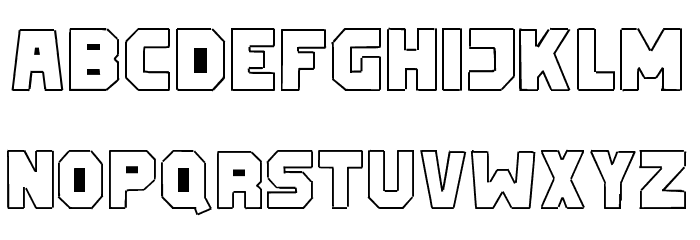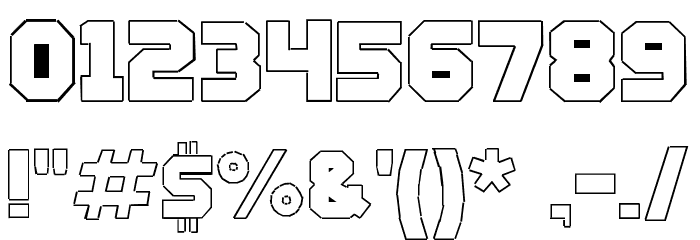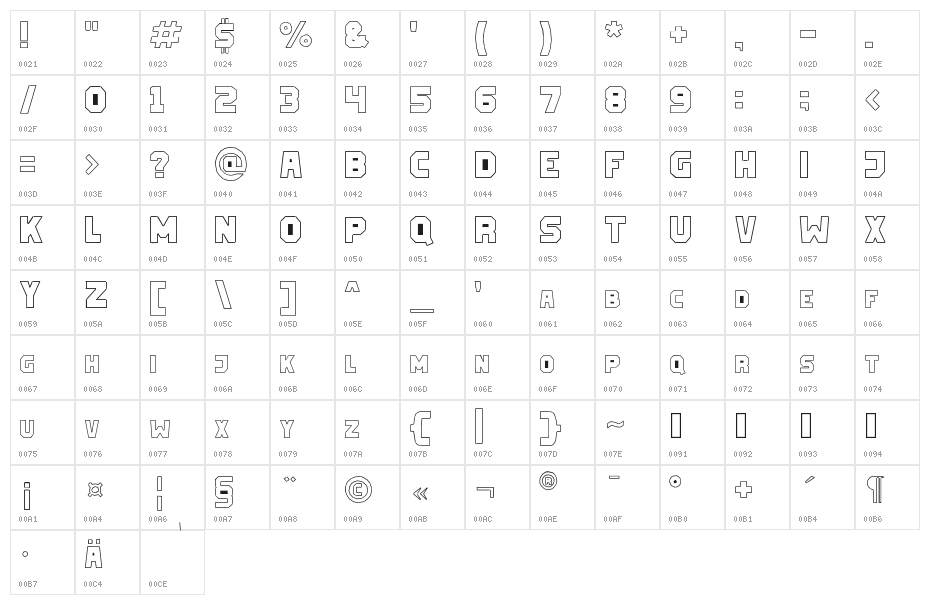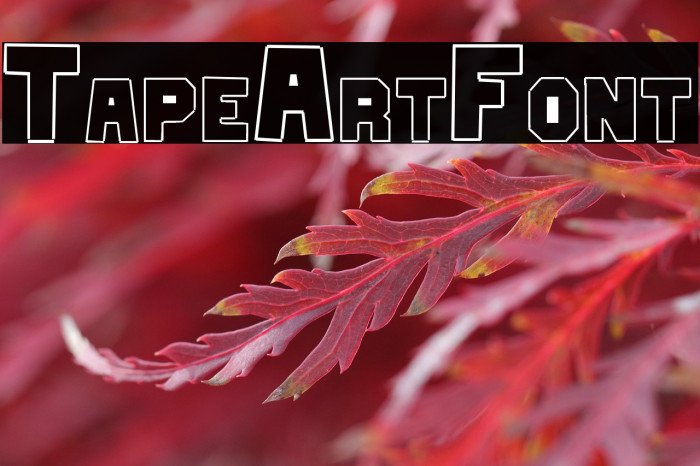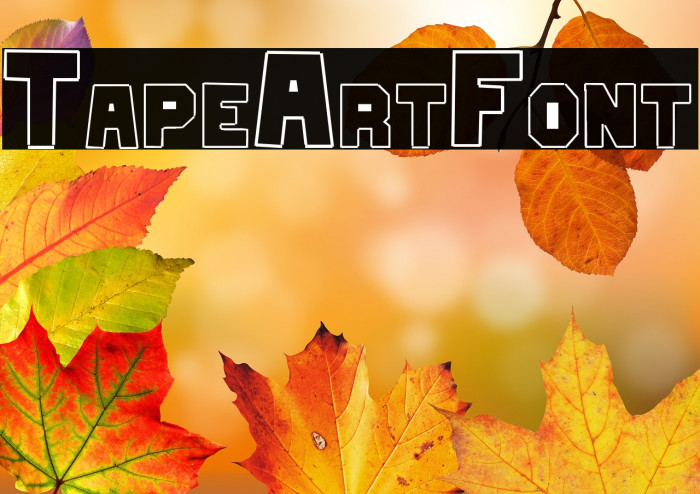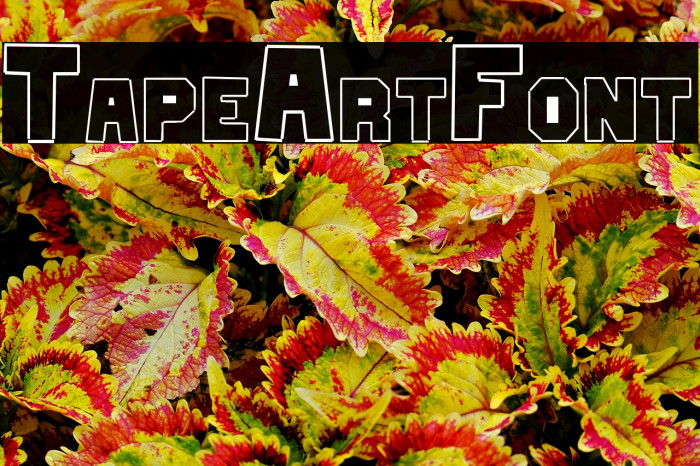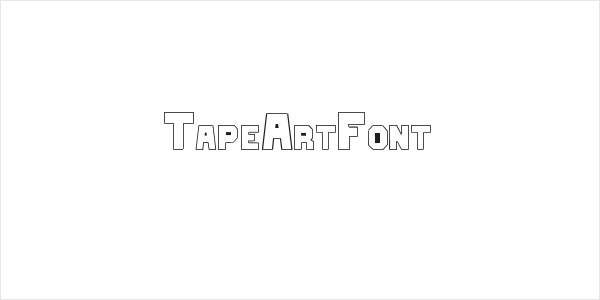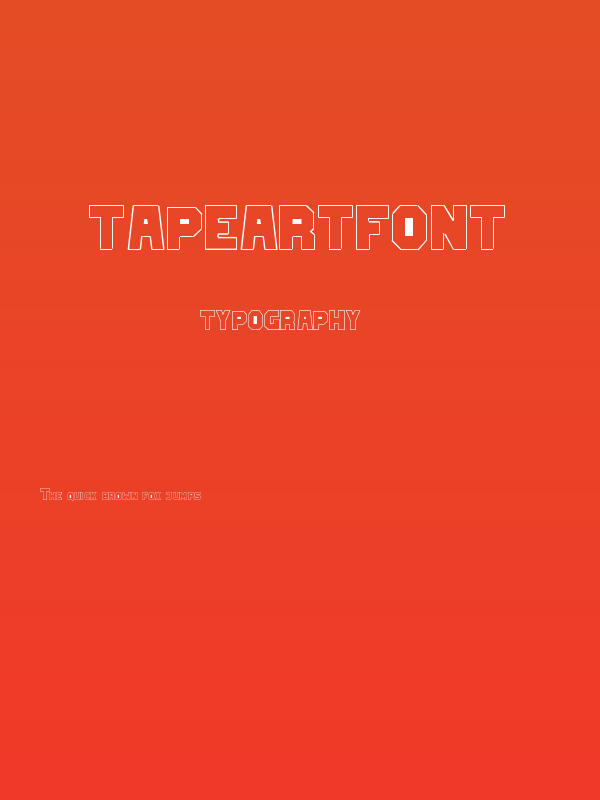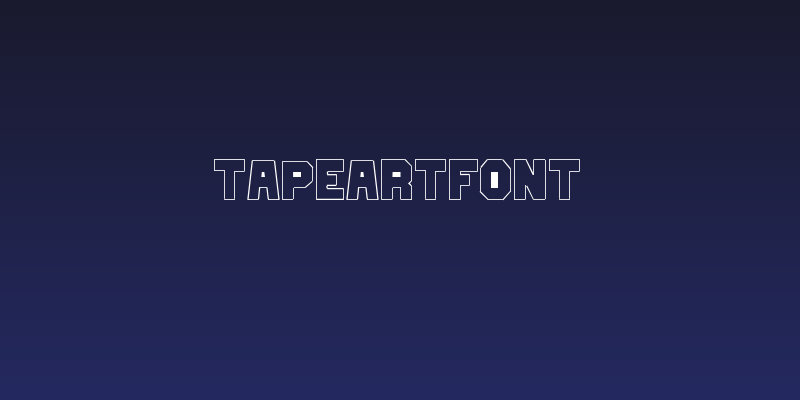
TapeArtFont Font
This font features a bold, geometric design with a distinct outline style. Each character is constructed with straight lines and sharp angles, giving it a modern and industrial feel. The uppercase and lowercase letters maintain a consistent width, creating a uniform appearance. The numerals and special characters follow the same design principles, ensuring cohesion across all elements. The outlined nature of the font adds a unique dimension, making it stand out in various applications. Its structured form is both eye-catching and legible, suitable for a variety of creative projects.
A bold, geometric outline font with a modern, industrial style.
- Font: TapeArtFont
- Proposed Projects: Ideal for posters, logos, headlines, and branding materials where a modern and bold statement is desired.